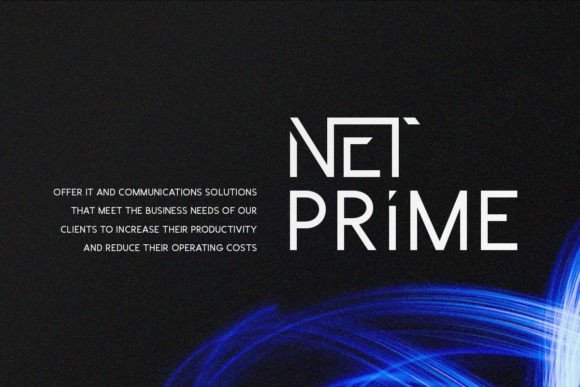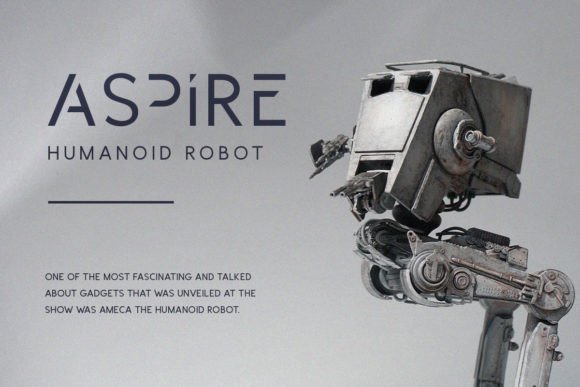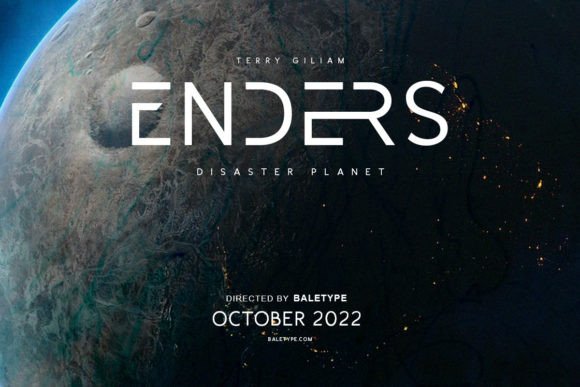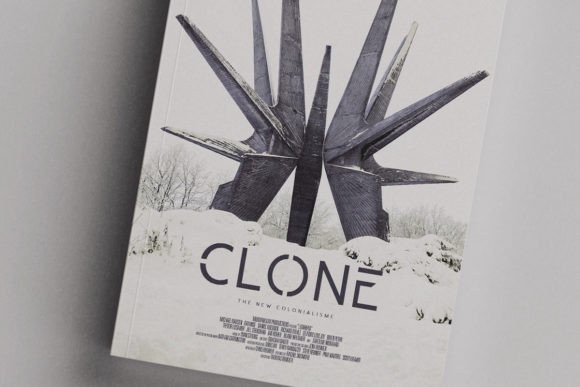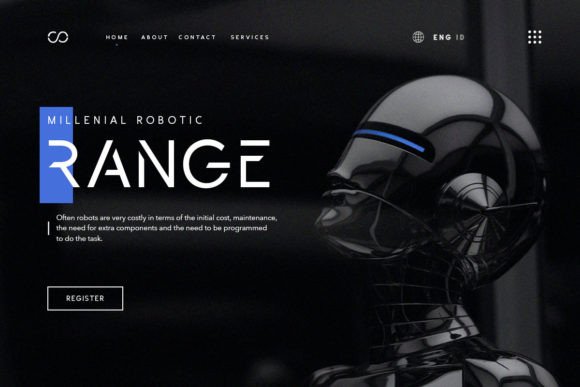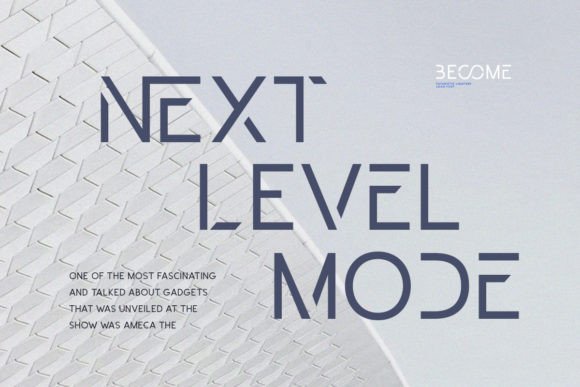
Introducing Become: The Futuristic Logo Font That Elevates Your Brand
In the world of design, typography plays a crucial role in creating a lasting impression. A well-crafted font can make your logo stand out, convey your brand’s personality, and leave a lasting impact on your audience. If you’re on the hunt for a font that embodies modernity and creativity, look no further than Become. This futuristic logo font is based on a sans serif, with a unique twist that sets it apart from the rest.
The Unique Features of Become
Become boasts a range of features that make it an ideal choice for designers and crafters. One of its standout characteristics is its twisted lowercase letters, which add a touch of edginess to any logo. This distinctive feature allows you to create a brand identity that’s both modern and memorable. Additionally, Become includes creative ligatures that inject an original touch into your projects. These ligatures provide a level of sophistication and elegance, setting your brand apart from the competition.
Why Choose Become for Your Logo?
So, what makes Become an attractive choice for your logo? Here are just a few reasons why designers and crafters are falling in love with this futuristic font:
- Modern Aesthetic: Become’s sans serif base and twisted lowercase letters create a modern aesthetic that’s perfect for brands looking to appear cutting-edge.
- Unique Character: The font’s distinctive features ensure that your logo will stand out from the crowd, making it easier to establish a strong brand identity.
- Versatility: Become’s clean lines and creative ligatures make it suitable for a wide range of applications, from logos and branding to packaging and advertising.
How to Use Become in Your Design Projects
Using Become in your design projects is easy. Here are a few tips to get you started:
- Experiment with Ligatures: Take advantage of Become’s creative ligatures to add a touch of sophistication to your designs.
- Play with Lowercase Letters: Become’s twisted lowercase letters are a key feature of the font. Experiment with different combinations to create a unique look.
- Pair with Other Fonts: Become pairs well with a range of other fonts. Try combining it with a serif font for a striking contrast.
Tips for Crafters and Designers
Whether you’re a seasoned designer or a crafty DIY enthusiast, here are a few tips to help you get the most out of Become:
- Keep it Simple: Don’t be afraid to keep things simple. Become’s clean lines and modern aesthetic make it perfect for minimalist designs.
- Be Creative: Don’t be afraid to experiment and try new things. Become’s unique features make it an ideal choice for designers who like to push the boundaries.
- Consider Your Brand: When choosing a font, it’s essential to consider your brand’s personality and values. Become is perfect for brands that want to appear modern, edgy, and creative.
Become is a game-changing font that’s perfect for designers and crafters looking to elevate their brand. With its unique and twisted lowercase letters, creative ligatures, and modern aesthetic, it’s an ideal choice for anyone looking to create a lasting impression. Whether you’re designing a logo, creating a brand identity, or working on a craft project, Become is sure to inspire. So why wait? Download Become today and take your designs to the next level.